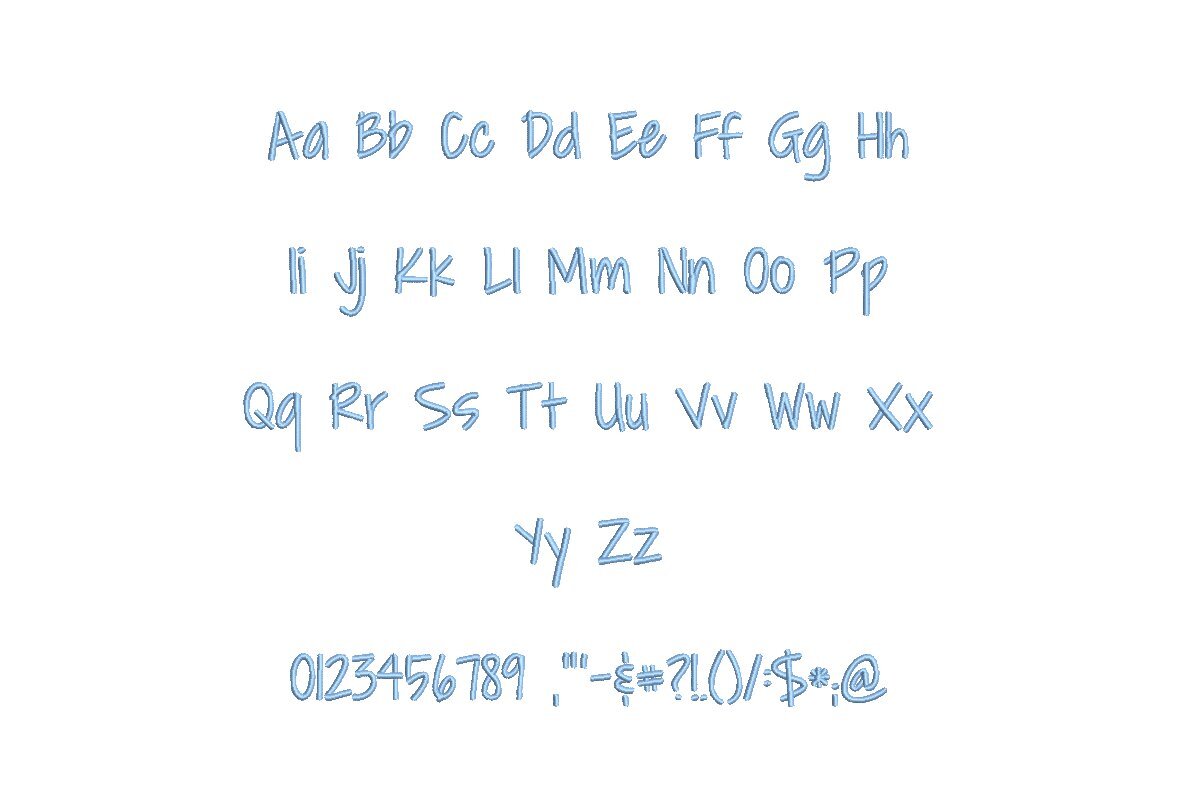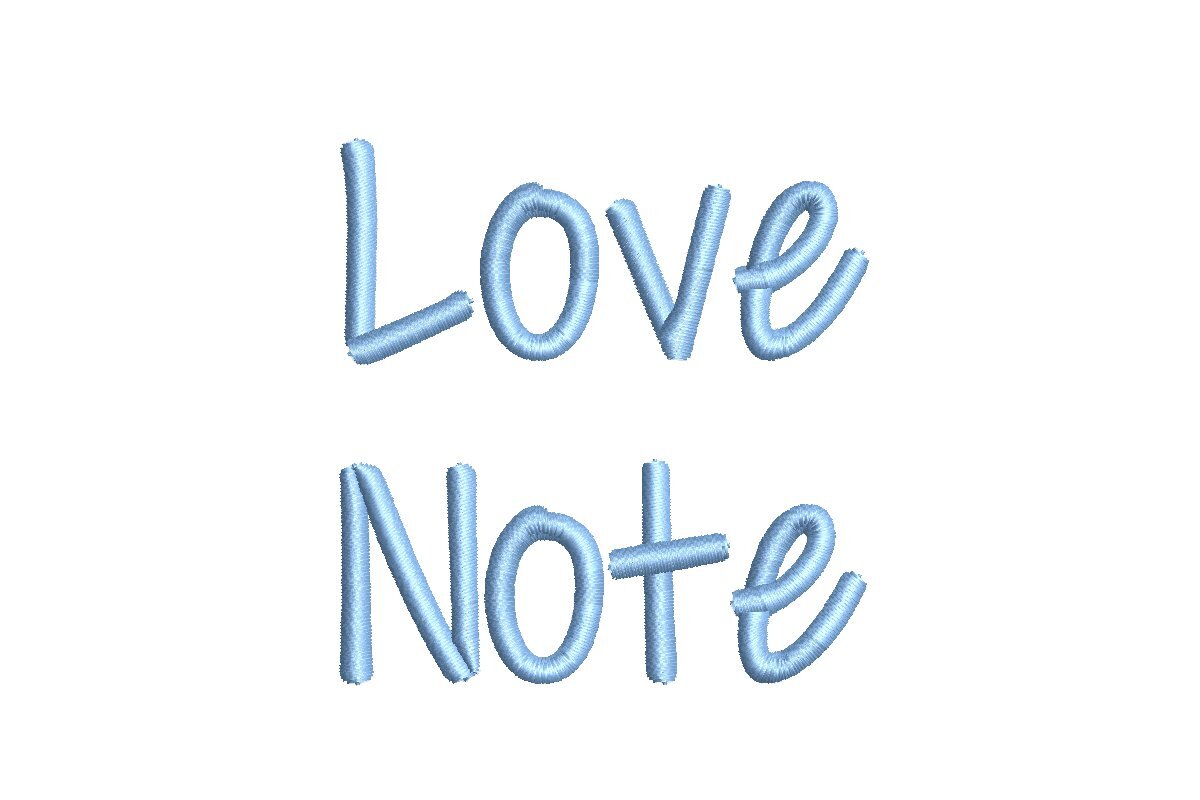
Introducing Love Note ESA Font - Your Path to Expressive Embroidery! Tailored for seamless compatibility with Wilcom Studio e4.5.6 and Hatch 3 versions and beyond, this font is your muse for creating heartfelt embroidery designs. With its romantic, graceful design, it adds a touch of emotion to your projects, ensuring they resonate effortlessly. Achieve professional-quality embroidery with ease, thanks to this user-friendly digitized font promising precision in every stitch. Immerse yourself in a world of boundless creative opportunities with Love Note ESA Font, and elevate your Wilcom Studio and Hatch software. Choose emotional expression over ordinary - upgrade today for a journey of embroidery artistry. Your designs deserve love and attention.